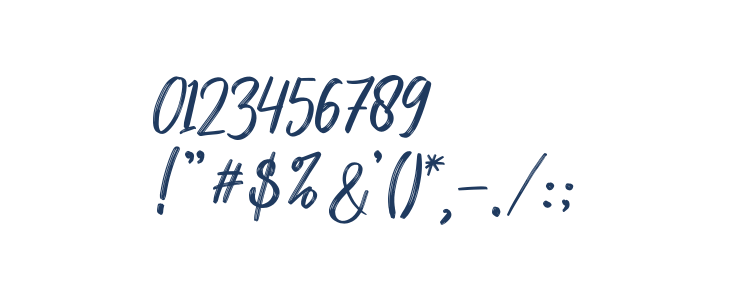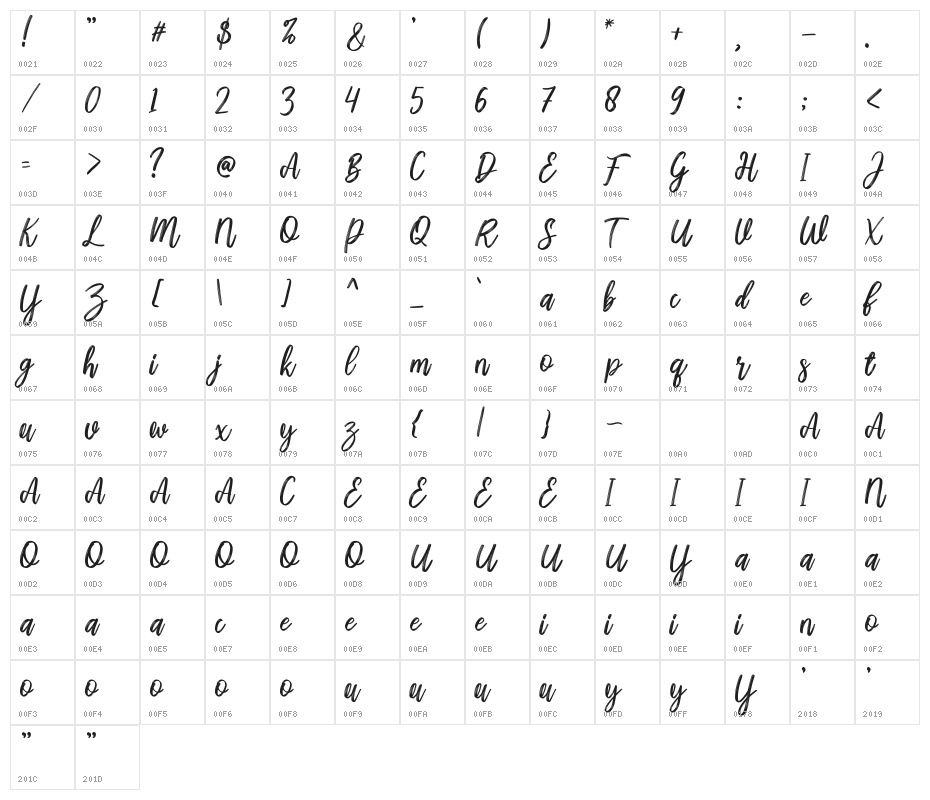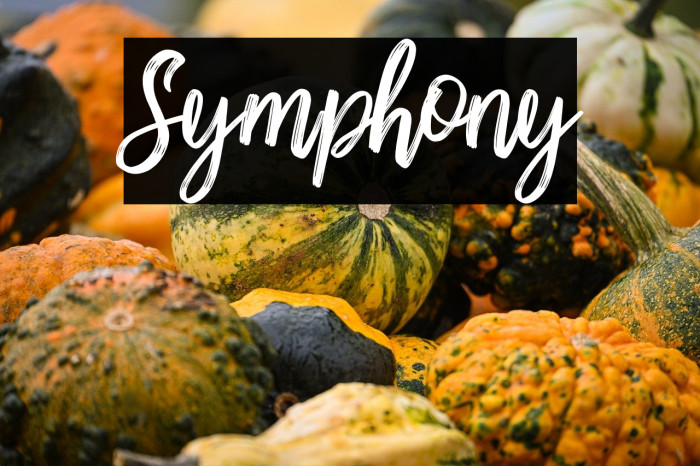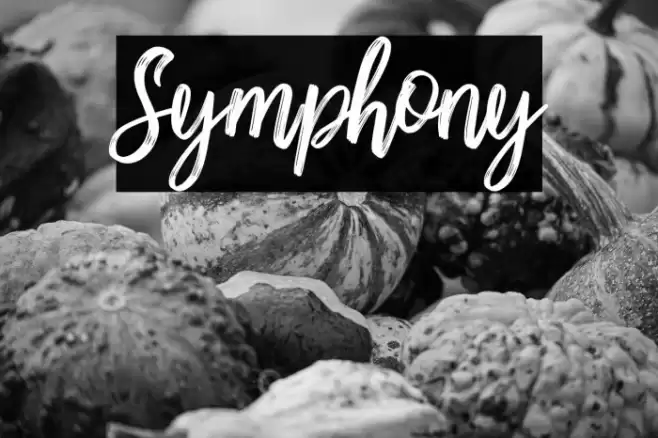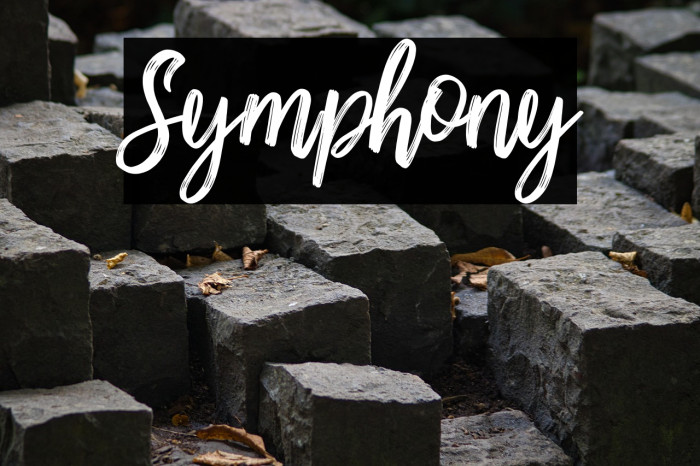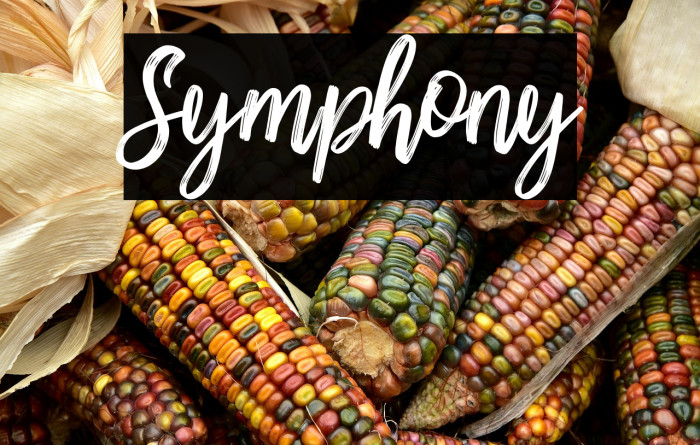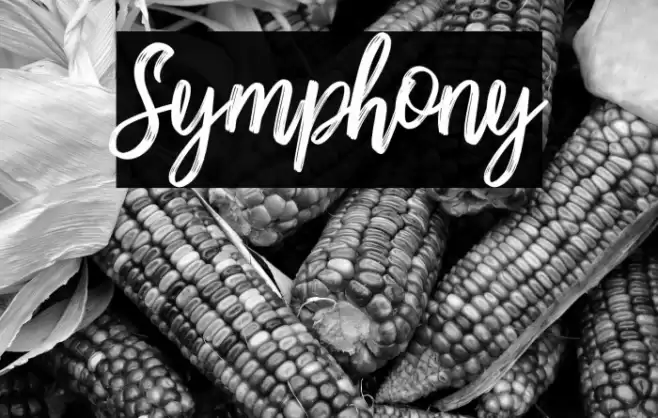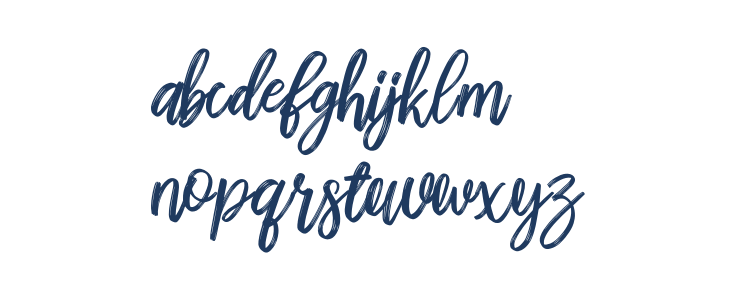
Symphony Font
Symphony Description
This font exudes a dynamic and expressive style, characterized by its bold, flowing script that mimics the fluidity of handwriting. The letters are interconnected with sweeping curves and loops, giving it a sense of movement and elegance. The strokes are thick and consistent, providing a strong visual impact. The uppercase letters are tall and commanding, while the lowercase letters maintain a harmonious balance with their slightly smaller size. The numbers and special characters follow the same stylistic cues, ensuring a cohesive look throughout. This font is perfect for projects that require a personal touch or a sense of sophistication.